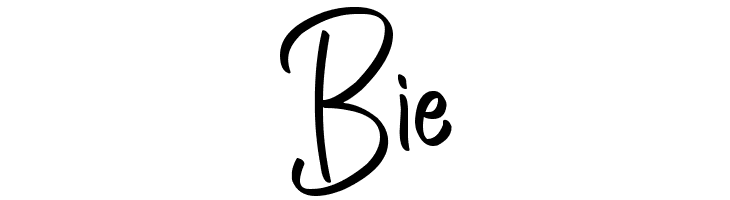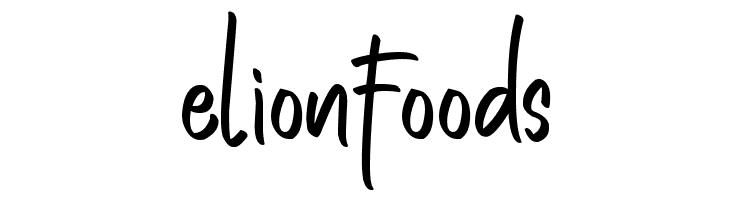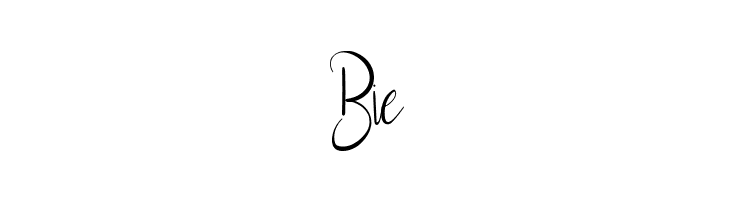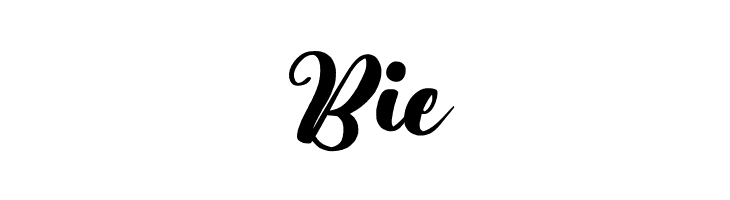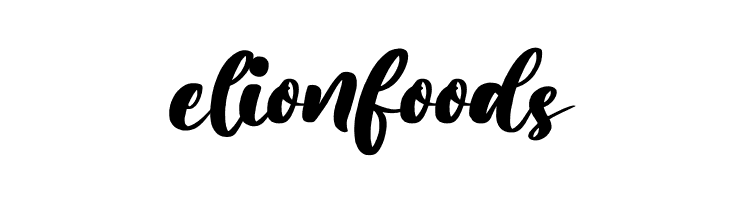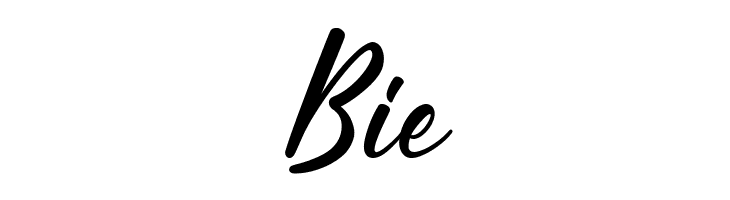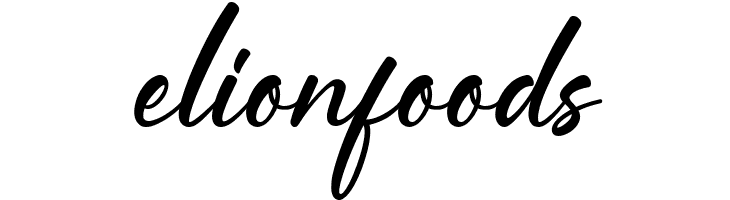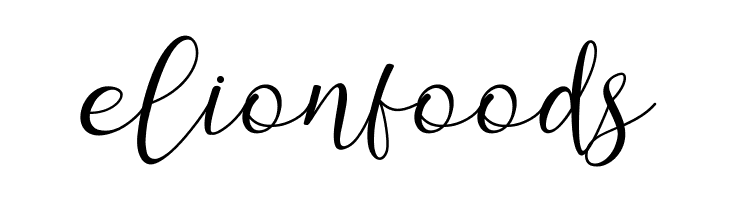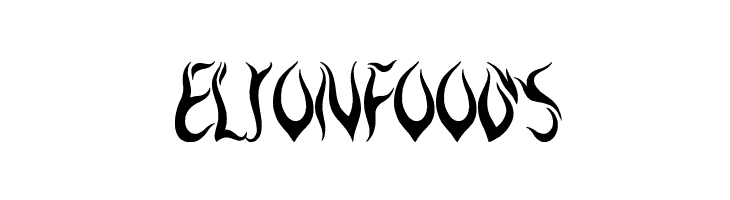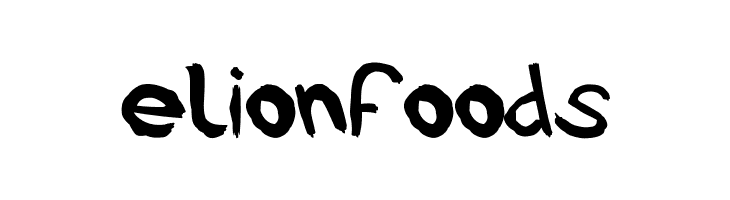
( Fonts by Breogán Alamancos Millán )
A bold, decorative font with a vinyl record-inspired design.
( Fonts by A. M. )
An ornate, decorative font with floral embellishments on uppercase letters.
( A. M. )
A bold, vintage slab serif typeface with a typewriter-inspired design.
( Manu Sanz - www.manusanzdesign.com )
A modern, geometric font with clean lines and rounded edges.
An elegant and flowing script font with graceful curves and delicate strokes.
A flowing, cursive script with elegant, sweeping strokes and decorative flourishes.
An ornate and decorative typeface with intricate detailing and flourishes.
( Fonts by Bright Ideas )
A decorative and artistic font with intricate details and whimsical embellishments.
( Peter Olexa - www.dealjumbo.com )
An elegant inline serif font with swirling serifs and decorative details.
An elegant and decorative font with intricate inline details and unique flourishes.
( Fonts by Multype Studio )
Elegant cursive script with a handwritten feel.
An elegant and ornate script font with flowing cursive letters.
An elegant, flowing script font with sophisticated curves and loops.
( Din Studio - Donis Miftahudin - creativemarket.com/donism )
A playful and elegant handwritten font with fluid strokes and a slight slant.
An elegant, flowing script font with graceful curves and a decorative style.
( Fonts by Fanastudio )
A playful, handwritten font with a quirky and informal style.
( Fonts by www.omniglot.com )
A decorative font with intricate curves and a playful style.
( Amal elMourabet )
A bold, geometric font with a futuristic and modern style.
A cursive, handwritten font with elegant loops and flourishes.
( Pilar Celda )
A geometric and angular font with a modern, architectural style.
A graceful and fluid script font with elegant, cursive letterforms.